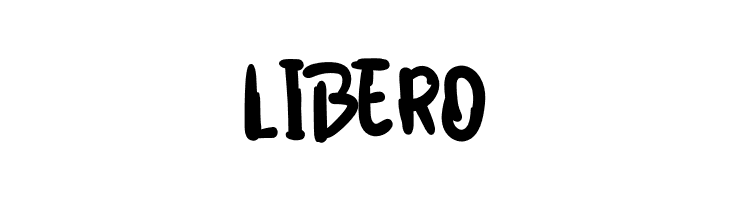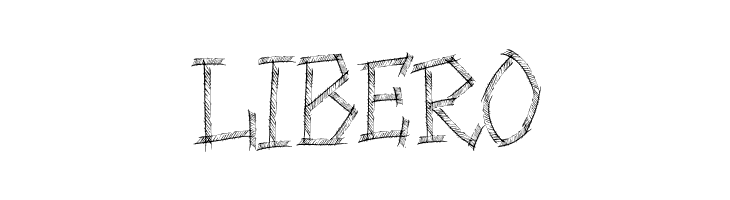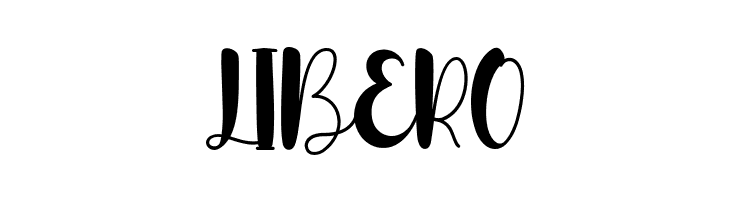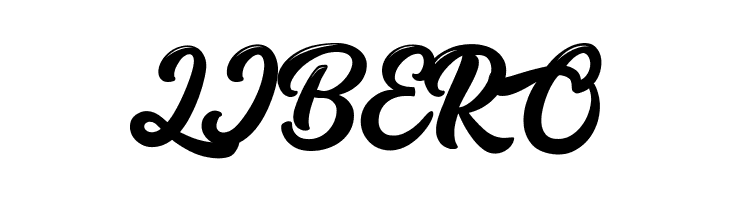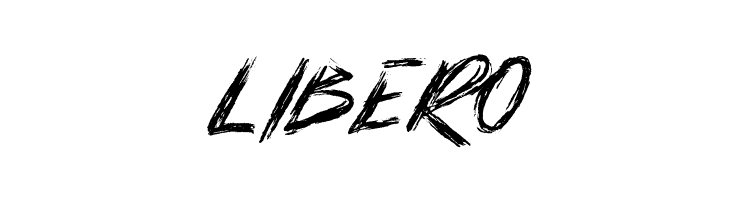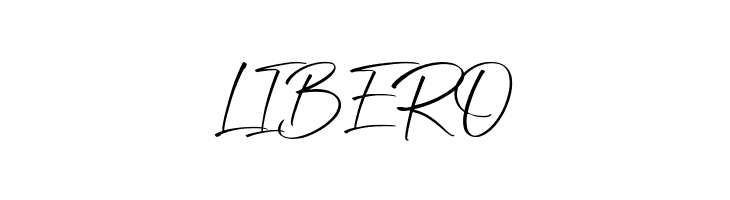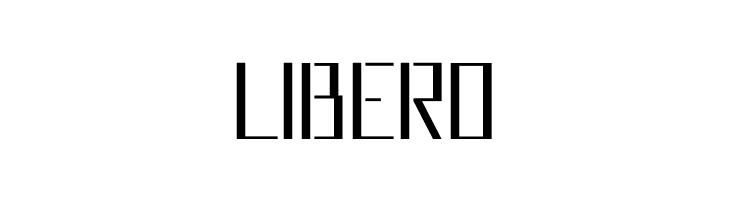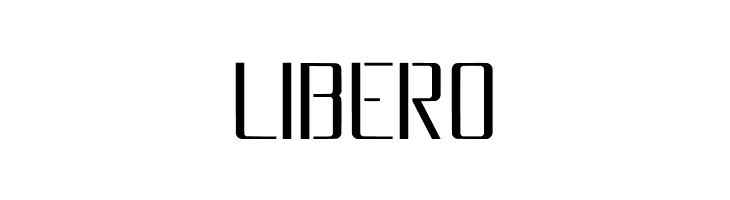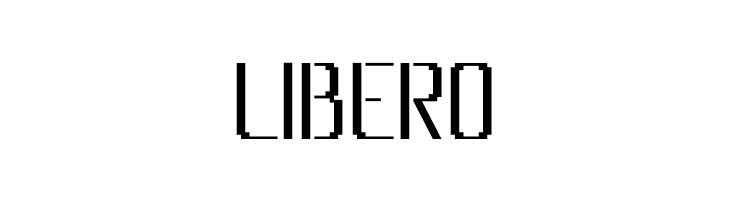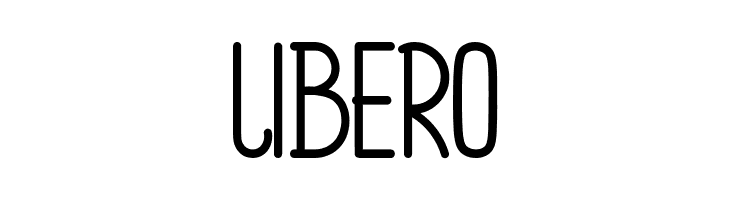
A bold, flowing script font with elegant, cursive letterforms.
A bold, decorative font with a grunge texture and thick outlines.
A futuristic, blocky font with geometric shapes and sharp angles.
A pixelated, tech-inspired font with a retro digital aesthetic.
A futuristic, geometric font with sharp, angular letterforms.
A bold, geometric font with sharp, angular characters and a modern aesthetic.
A dynamic and elegant script font with flowing, cursive letterforms.
A bold, modern typeface with clean lines and uniform spacing.
A clean, modern sans-serif font with medium contrast and balanced spacing.
A flowing, cursive font with elegant, elongated strokes and a handwritten style.
A bold, italicized font with dynamic slanted letters and a shadow effect.
A flowing, elegant script font with a natural handwriting style.
A bold, modern font with uniform strokes and strong visual impact.
A bold, distressed font with a rough, vintage texture.
A bold, distressed font with a vintage, industrial feel.
A bold, geometric sans-serif font with a blocky design.
A bold, geometric font with a digital, futuristic style.
A rugged, shredded font with a hand-drawn, energetic style.
A rugged, distressed font with a fragmented, edgy style.
A bold, condensed font with high contrast and dramatic style.
A bold, italic font with a dynamic, condensed style and high contrast.
A bold, brush-style font with dynamic, jagged strokes.
A dynamic, edgy handwritten font with sharp, angular strokes and a sense of movement.
A playful, handwritten font with flowing, interconnected letterforms.
A playful and energetic handwritten font with dynamic strokes.
A futuristic, pixelated font with horizontal line detailing.
A playful, modern font with a handwritten feel and rounded edges.
A playful, handwritten font with bold and flowing strokes, perfect for informal and creative projects.
A bold, 3D geometric font with a retro, comic book style.
A bold, Gothic-inspired font with intricate detailing and sharp, angular lines.
A decorative font with continuous line style and intricate loops.
A bold, playful handwritten font with a casual and friendly style.
A bold, playful handwritten font with a casual and friendly vibe.